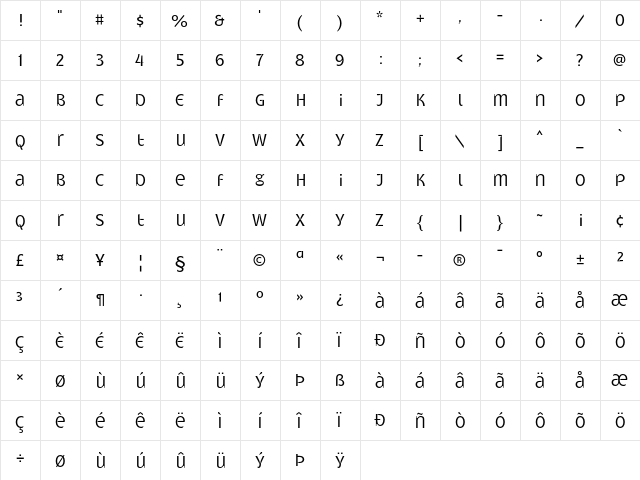
Gatometrix Regular
| Foundry | gluk |
| Designer | gluk |
Design Context for Gatometrix Typeface
Gatometrix offers clean, dependable letterforms without strong stylistic allegiance, making it a practical choice for designers who need flexibility.